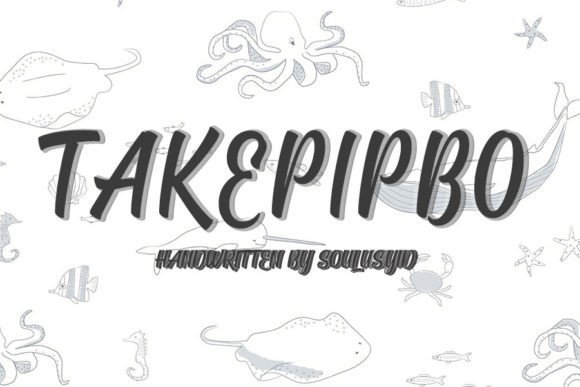
Introducing Takepipbo Font - The Penmanship Maestro of School Notes
Step into the realm of Takepipbo, a script font that mirrors the graceful strokes of a handwritten masterpiece. Its natural, distinctive flow breathes life into your words, creating an intimate and personal touch like no other.
Takepipbo's unique letterforms, reminiscent of a skilled calligrapher's artistry, add a touch of warmth and charm to any design. Whether it's crafting heartfelt invitations, sending personalized greetings, or creating captivating design projects, Takepipbo transforms your words into works of art.
With its fluid lines and effortless elegance, Takepipbo invites you on a nostalgic journey back to the days of handwritten notes. Its charm is undeniable, evoking feelings of authenticity and connection. Each letter dances across the page, carrying with it a sense of individuality and genuine expression.
Indulge in the artistry of Takepipbo and elevate your design projects to new heights. Let its organic flow guide you as you create designs that resonate with warmth and personality.